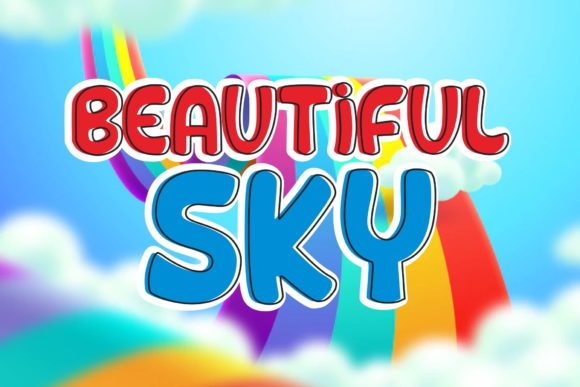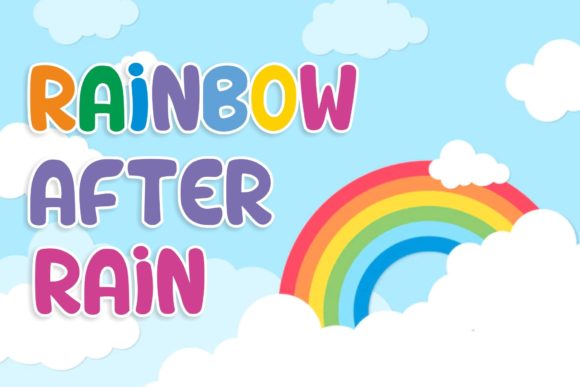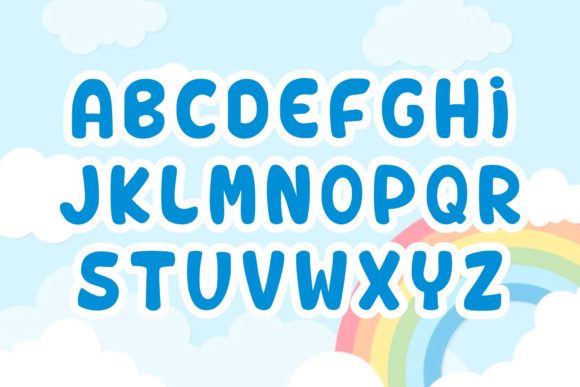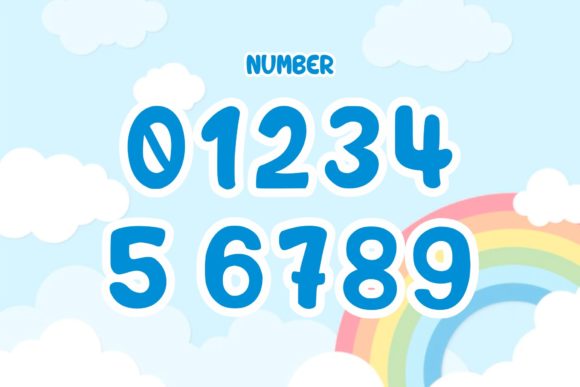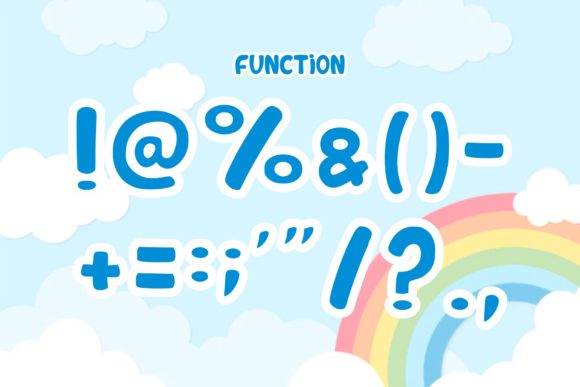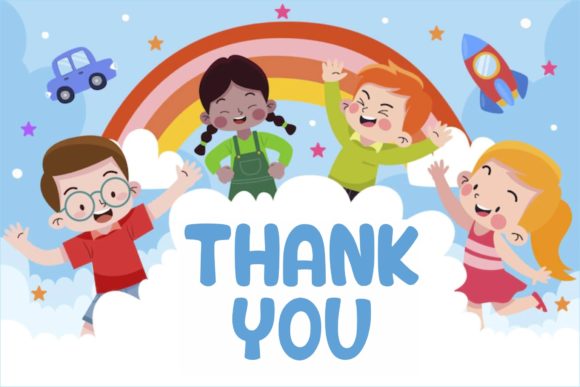
The Cute Rainbow Font: A Fun and Friendly Design Essential
I’ll never forget the time I was working on a children’s party invitation design, and I just couldn’t find the perfect font. The project required something fun, playful, and kid-friendly, but everything I tried seemed either too boring or too over-the-top. That’s when I stumbled upon the Cute Rainbow font, and it instantly became the star of the show! With its casual and easy-to-read character, this font is perfect for children-themed designs and school projects. Your options are limitless!
An Honest Review: The Good and the Quirky
What I Love About Cute Rainbow ✨
- ✅ Fun and playful vibe: Cute Rainbow instantly adds a touch of whimsy to any design, making it perfect for kids’ projects, party invitations, and educational materials.
- ✅ Easy to read: Despite its playful nature, this font remains clear and legible, even at smaller sizes.
- ✅ Versatile: Use it for titles, headings, or even short paragraphs – Cute Rainbow adapts seamlessly to different design needs.
While Cute Rainbow is an excellent font, it’s not without its quirks. For instance:
- ⚠️ Limited use in formal designs: Given its playful nature, Cute Rainbow might not be the best fit for formal or professional projects.
- ⚠️ Glyph variety: While the font has a good range of characters, it might not have every special glyph or symbol you need.
The Designer Inspiration Behind Cute Rainbow
Cute Rainbow was created with the intention of bringing a splash of fun and color to design projects. The designer, inspired by the whimsical world of children’s illustrations, aimed to craft a font that would evoke a sense of playfulness and joy. The result is a font that’s both visually appealing and highly versatile.
Q: What type of projects is Cute Rainbow best suited for?
A: Cute Rainbow is perfect for children-themed designs, school projects, party invitations, and any creative project that requires a fun and playful touch.
Q: Does Cute Rainbow support OpenType features?
A: Yes, Cute Rainbow supports OpenType features, including ligatures, stylistic alternates, and more. Experiment with these features to add more personality to your text.